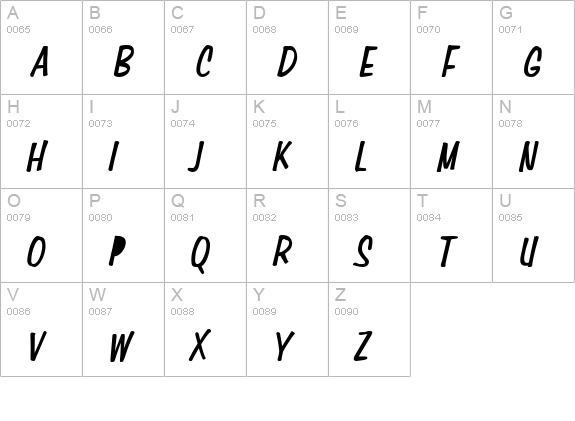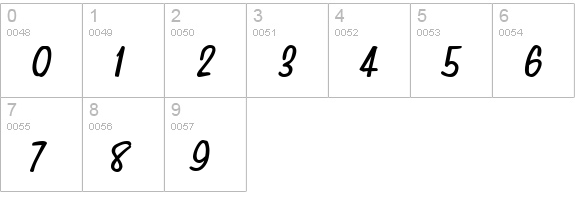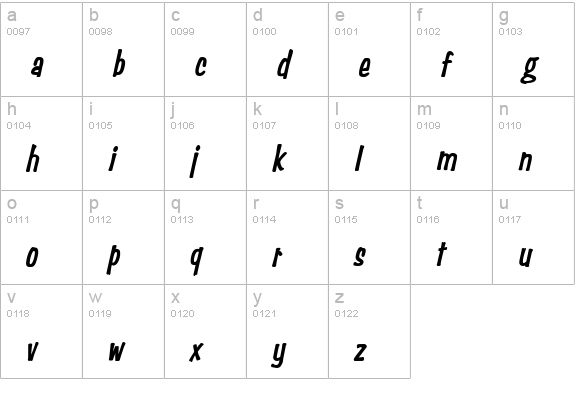
Simpson Condensed Heavy Italic is a heavy, high-impact, condensed-width, italic variant in the Simpson typeface family \xE2\x80\x94 well suited to high-impact headlines, posters, and display advertising.
Simpson Condensed Heavy Italic font is a bold and impactful typeface that exudes strength and confidence. Its condensed form allows for efficient use of space, making it perfect for headlines, titles, and display purposes where maximum impact is desired. The heavy weight of this font adds a sense of power and authority to any design, while the italic style adds a touch of elegance and sophistication. The slanted letters create a dynamic and energetic feel, making Simpson Condensed Heavy Italic font ideal for projects that require a bold statement. But what makes this font even more appealing is that it is free. Yes, you read it right! Simpson Condensed Heavy Italic font is freely available to download at FontsMarket.com. With just a few clicks, you can have access to this impressive and versatile font without spending a dime. Whether you are a designer, a blogger, or an entrepreneur, Simpson Condensed Heavy Italic font will surely elevate your projects to new heights. Its bold and italic style will captivate your audience, leaving a lasting impression. So don't miss out on this incredible opportunity. Download Simpson Condensed Heavy Italic font for free at FontsMarket.com and let your creativity soar. Embrace the power, elegance, and versatility of this font and create designs that will stand out from the crowd.